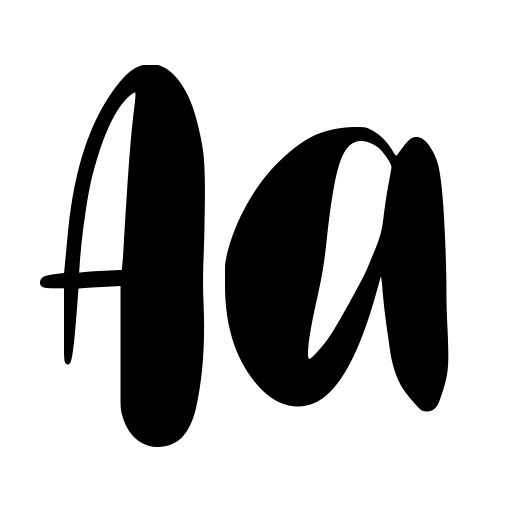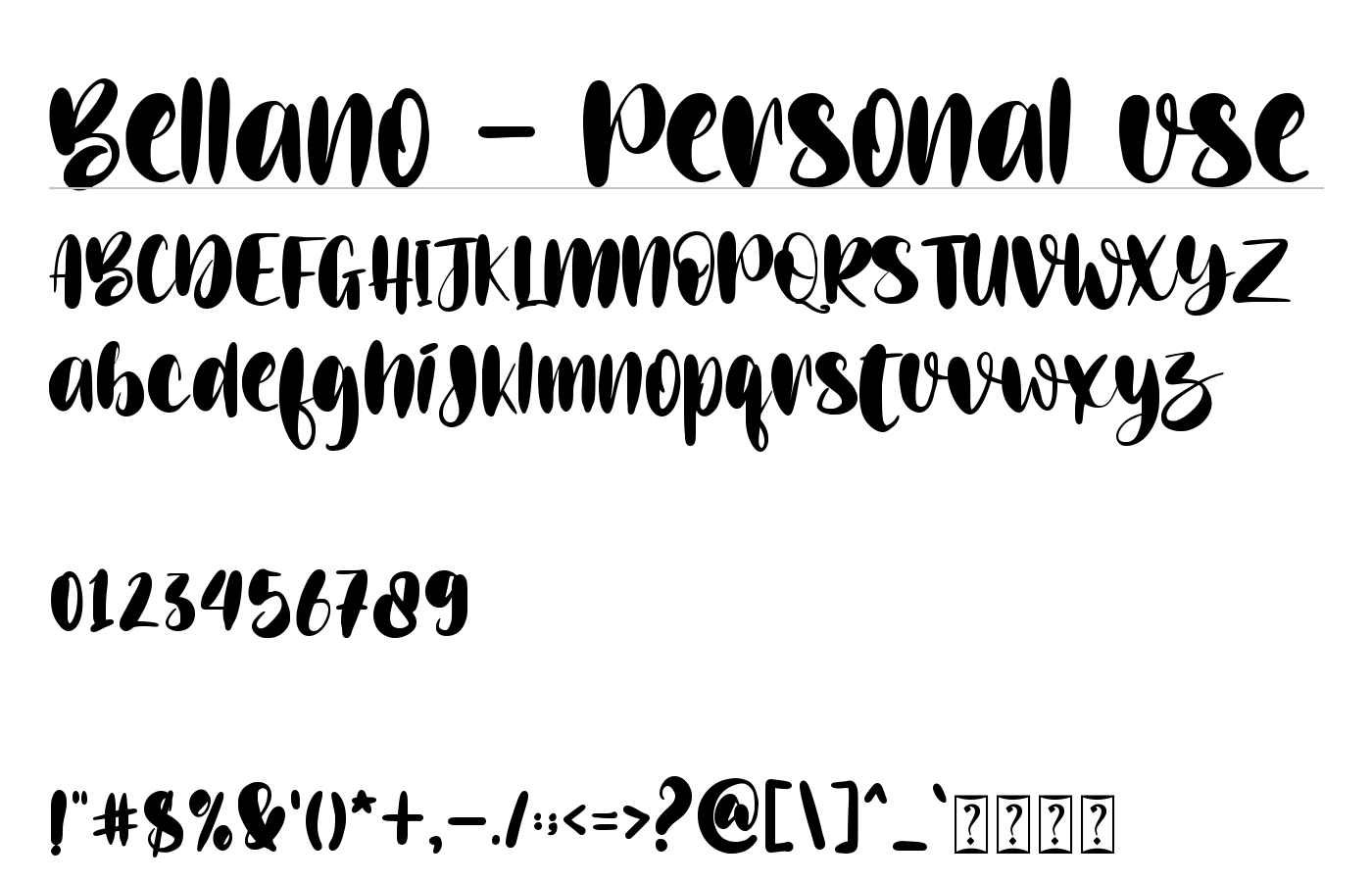
Bellano is a playful and bold script font with a hand-lettered feel, featuring thick, rounded strokes and lively, flowing curves that give it a warm and friendly personality. Its casual yet striking style makes it ideal for personal projects, invitations, logos, and branding that seek a cheerful, approachable vibe. This font works best in headlines, packaging, and creative designs where a touch of whimsy and charm is desired.
Bellano - Personal use Font